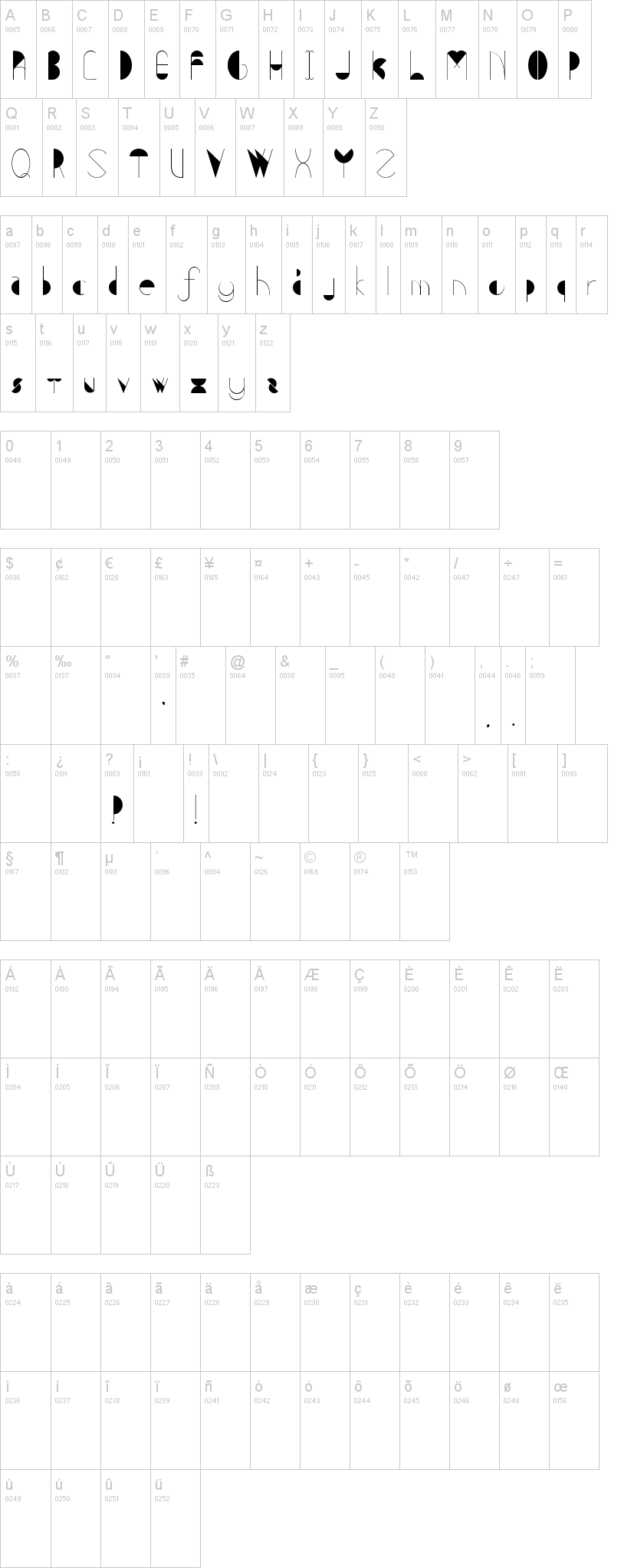
Шрифт Metis
Metis is a typeface designed around the half circle. Included in this .ttf is upper and lowercase along with a few punctuations. Enjoy! Free for personal use.